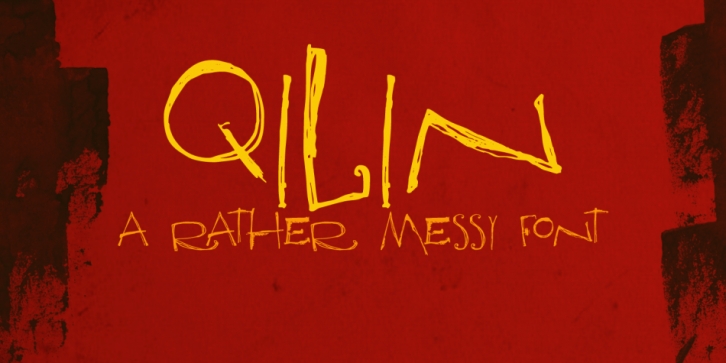
Qilin is a grunge font published by Hanoded.
A Qilin is a mythical hooved creature, looking a bit like a cow with a lion’s head, reptilian scales and deer antlers. The Qilin features in Chinese lore, where it is often associated with good luck and prosperity.
Qilin font is a rather messy typeface, created with a steel pen and Chinese ink. It might not be a classy font, but it will bring the buyer good luck! ;-)
Comes with a full range
of diacritics.